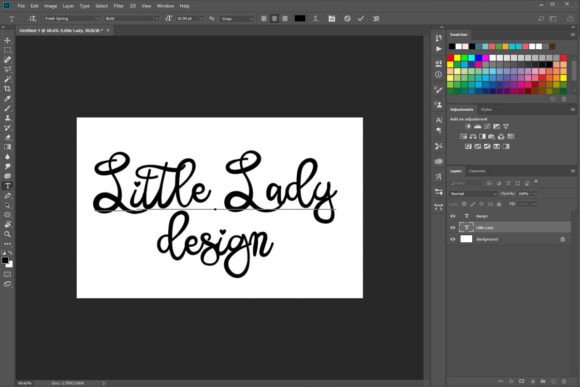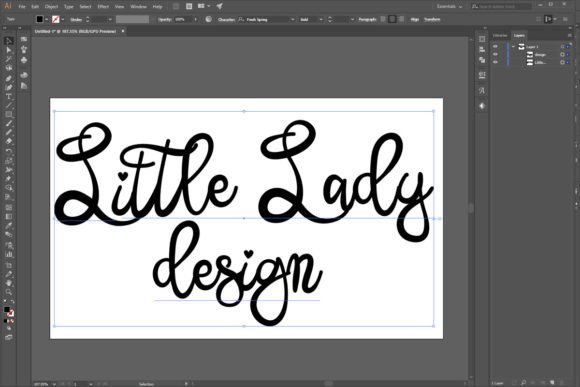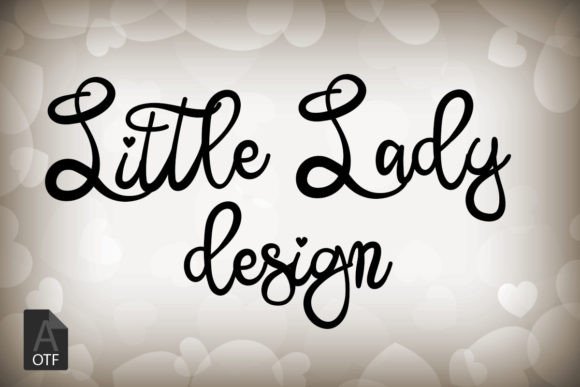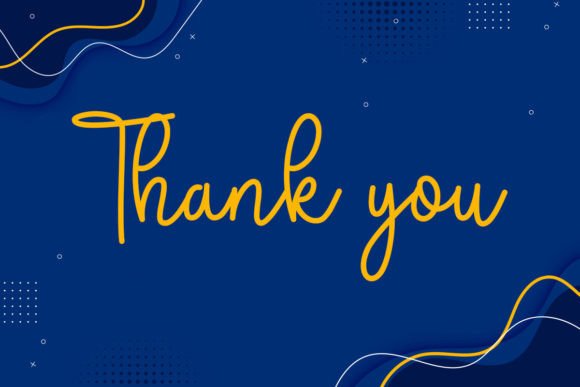
The Fresh Spring Font: A Stylish Addition to Your Design Library
I’ll never forget the design project that led me to discover the Fresh Spring font. I was working on a branding project for a new eco-friendly fashion brand, and I was struggling to find the perfect font to capture their playful yet sophisticated vibe. That’s when I stumbled upon Fresh Spring, a gorgeous script font that instantly elevated my design. In this article, I’ll share my experience with Fresh Spring, its features, and how to make the most of it in your designs.
An Honest Review of Fresh Spring
- ✨ Trendy and stylish: Fresh Spring has a modern feel that’s perfect for designs that need a touch of elegance.
- ✅ Versatile: This font works well with various themes, from fashion to lifestyle, and even food blogs.
- 💫 Easy to read: Despite its script nature, Fresh Spring is surprisingly legible, even at smaller font sizes.
- 🎨 Highly customizable: With OpenType features and glyphs, you can experiment with different styles to match your brand’s tone.
While Fresh Spring is an excellent font, it’s not perfect. Here are a few things to keep in mind:
- 🤔 Limited use in formal contexts: Due to its script nature, Fresh Spring might not be the best choice for very formal or traditional designs.
- ⚠️ Kerning issues: As with any script font, you might need to adjust kerning manually to achieve optimal results.
The Story Behind Fresh Spring
Fresh Spring was designed with the intention of capturing the carefree spirit of spring. The font’s creator aimed to craft a script font that’s both trendy and timeless, perfect for designs that require a touch of elegance. With its flowing lines and beautiful letterforms, Fresh Spring is sure to become a staple in your font library.
Q: What type of projects is Fresh Spring best suited for?
A: Fresh Spring is versatile and can be used in various projects, from fashion branding to food blogs and lifestyle designs.